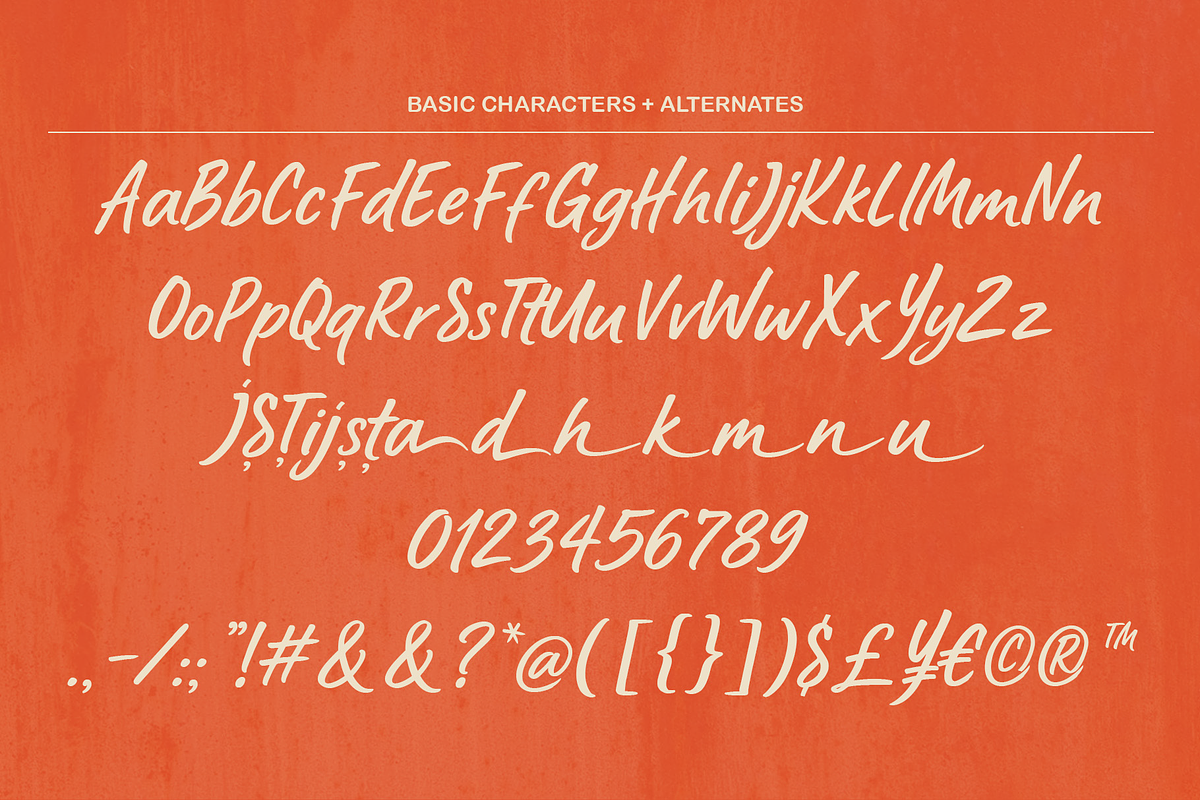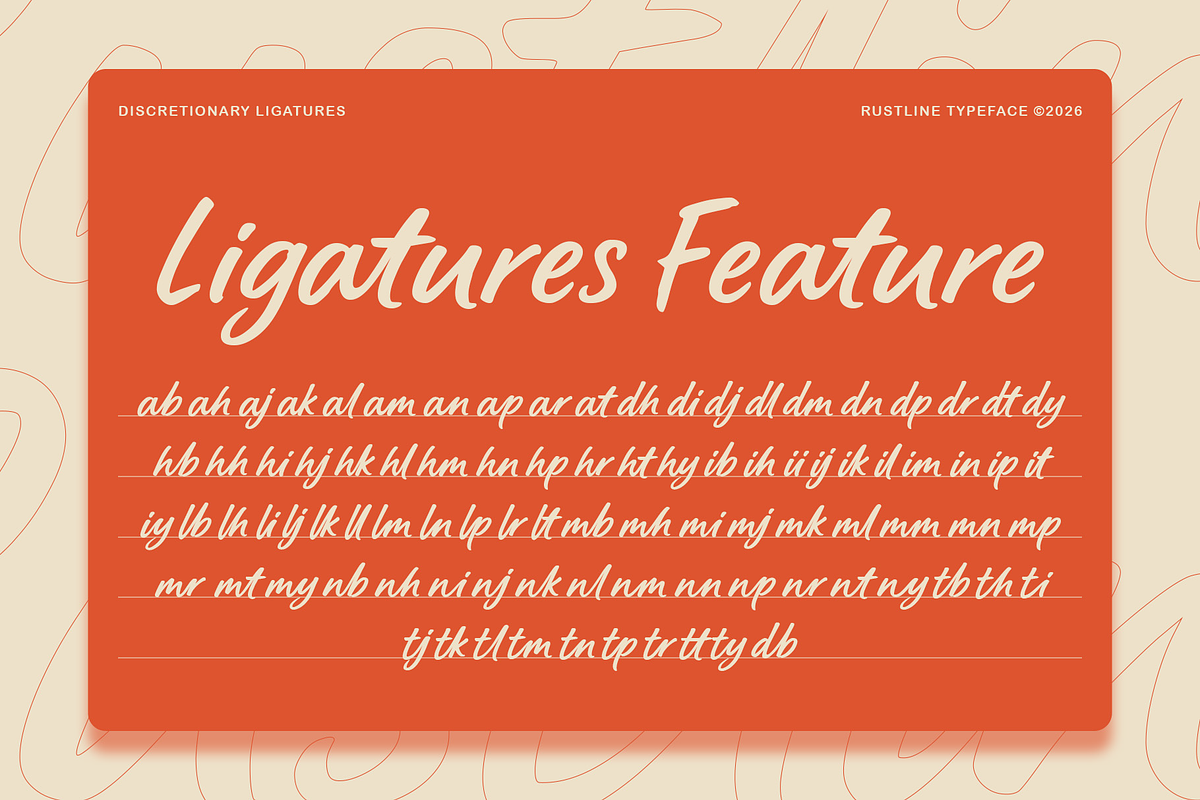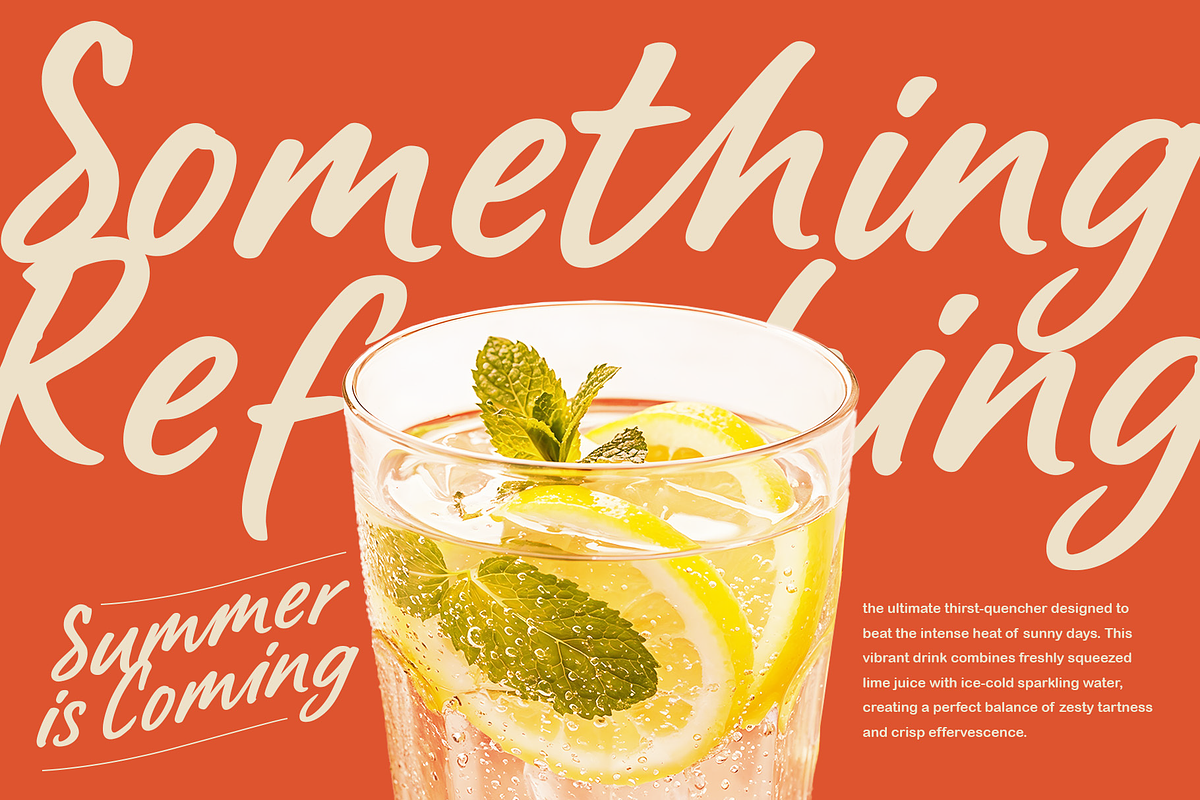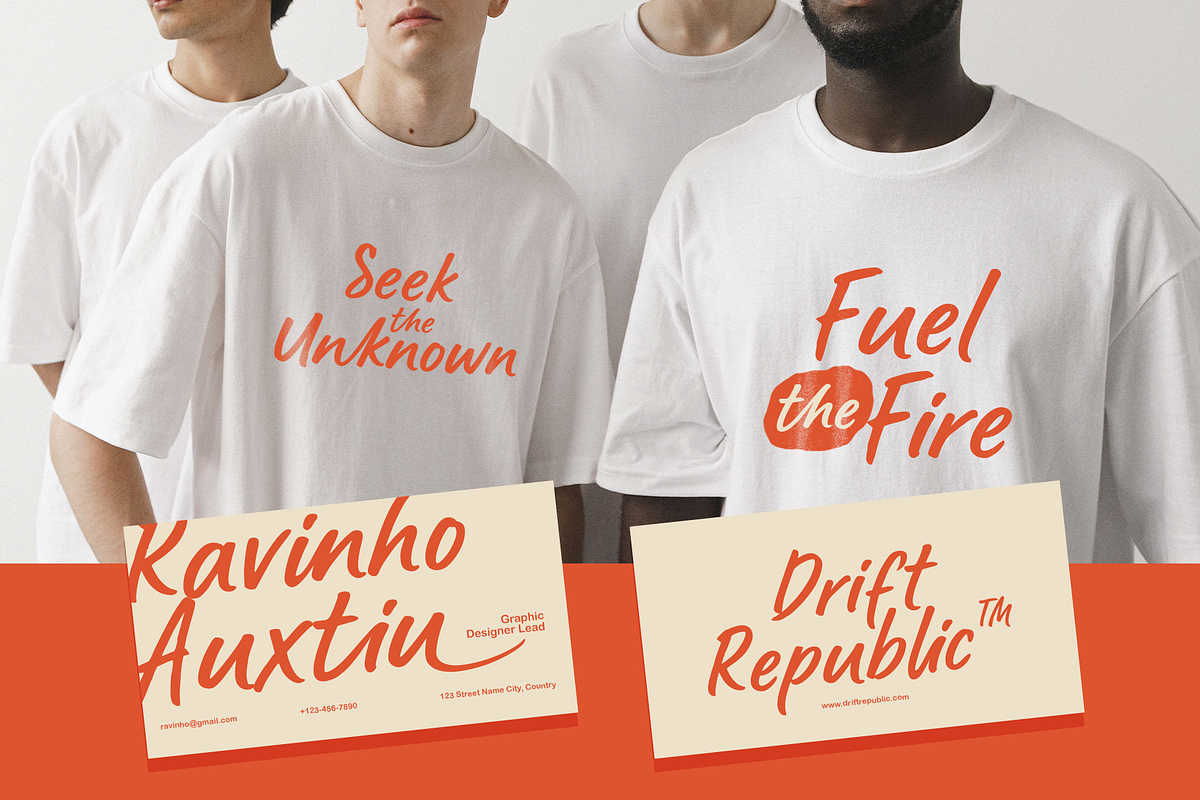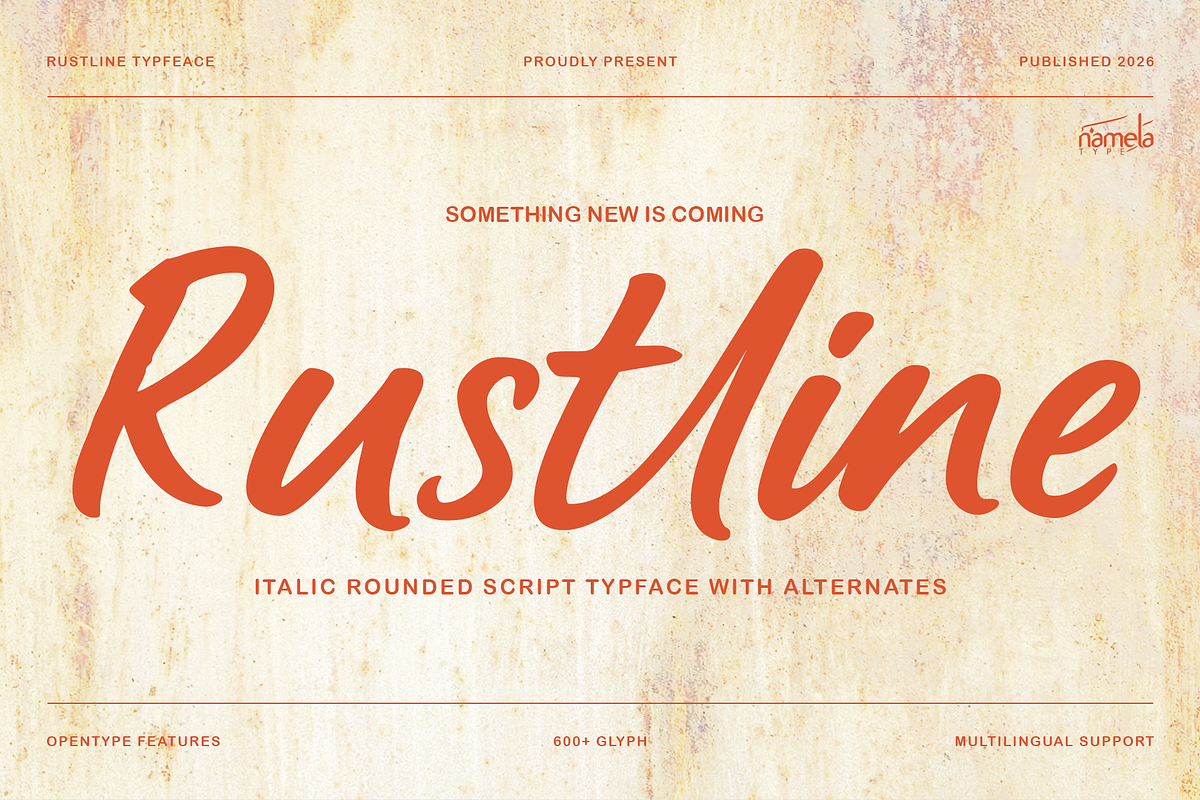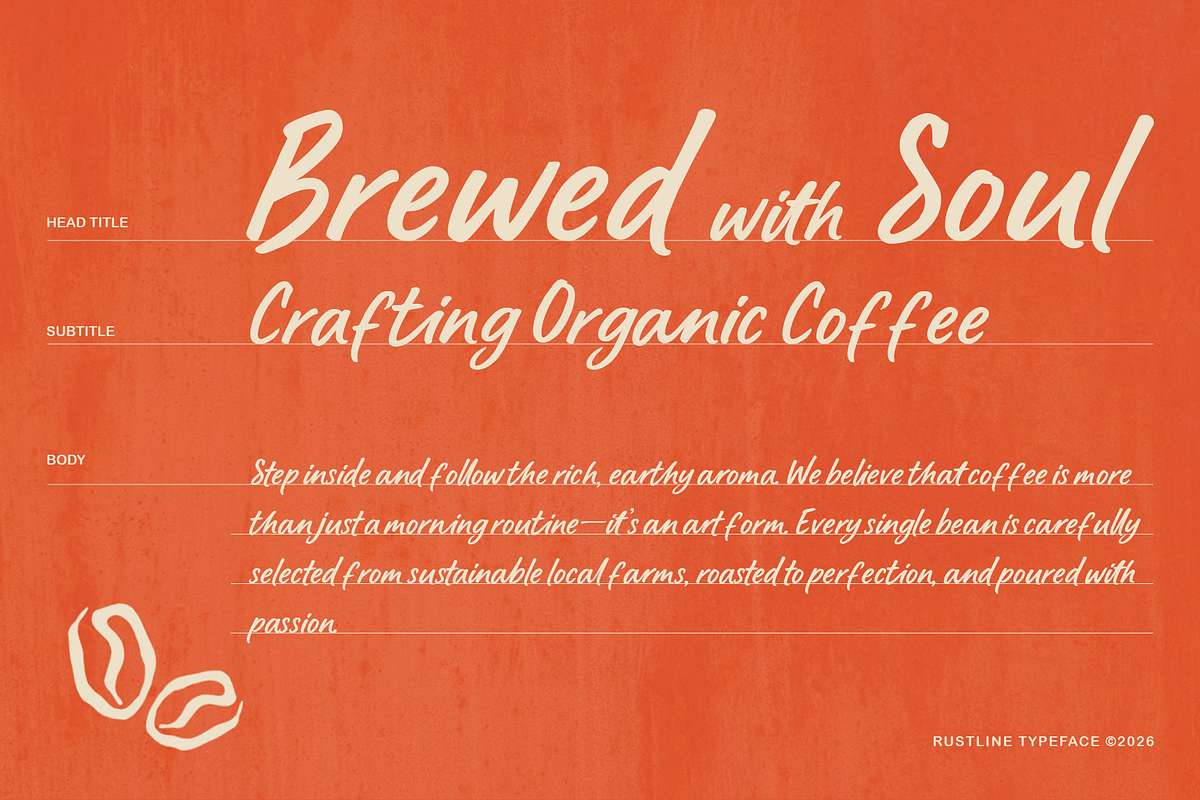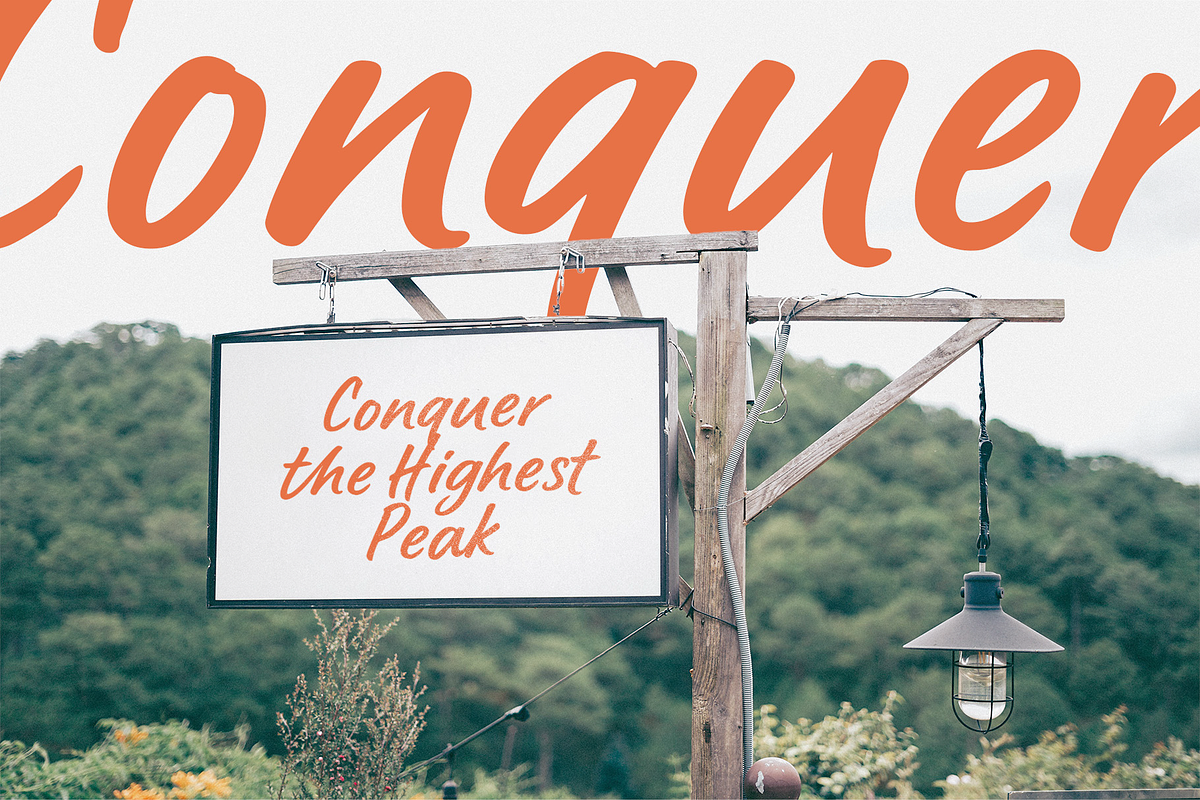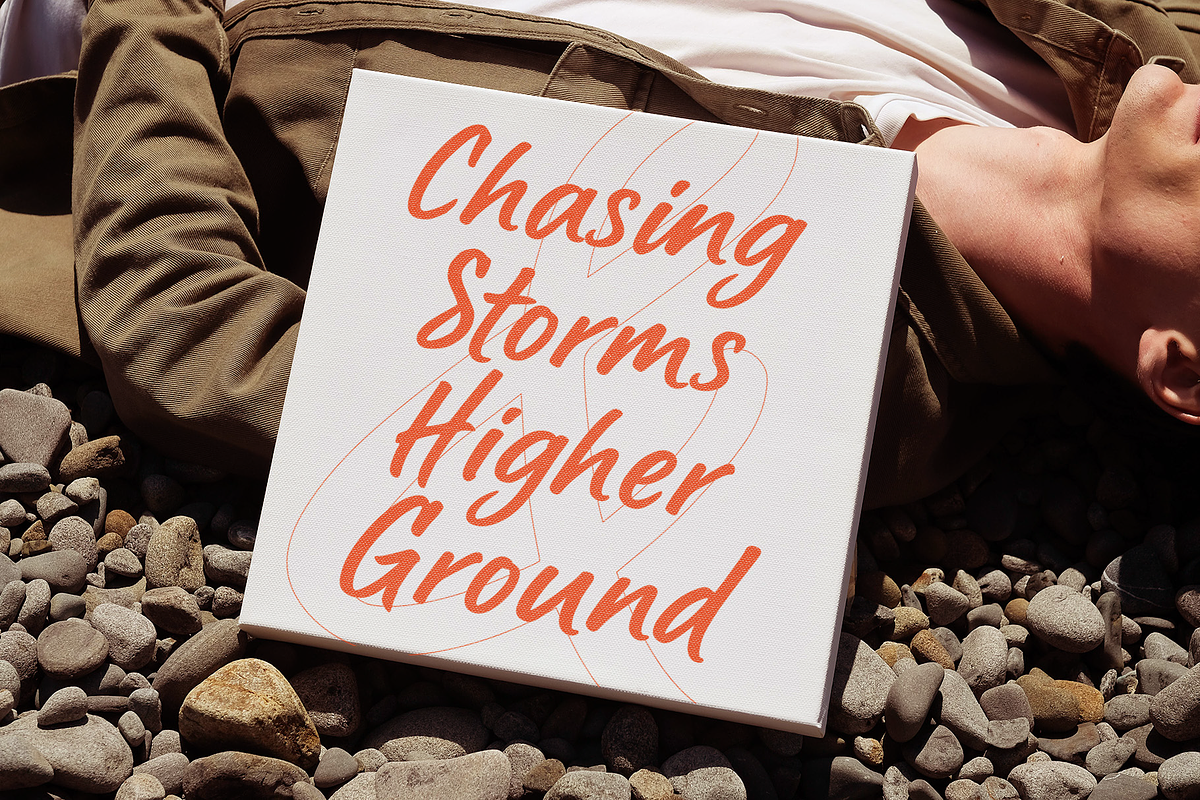
Rustline Bold Handwritten Script
Rustline – Bold Italic Handwritten Script Typeface for Artisan Branding
Rustline is a bold italic script typeface that captures the warmth of handcrafted lettering through smooth flowing strokes, rounded forms, and expressive movement. Inspired by artisan cafés, vintage sign painting, handwritten menus, and modern lifestyle branding, Rustline combines brush-style energy with contemporary refinement to create typography that feels authentic, inviting, and memorable.
Designed for creators who appreciate craftsmanship and personality, Rustline delivers the elegance of natural handwriting while maintaining the consistency required for professional branding, packaging, editorial design, and digital media. Its confident italic rhythm makes every headline feel dynamic without sacrificing readability.
Rustline was created to recreate the timeless beauty of handcrafted lettering found in artisan cafés, boutique storefronts, handwritten menus, vintage packaging, and lifestyle brands. Inspired by traditional brush lettering and natural handwriting, the typeface celebrates authentic craftsmanship while embracing modern typography standards.
Every character has been carefully refined to create smooth connections, rounded curves, and balanced proportions that preserve the spontaneity of handwritten lettering without compromising clarity. Rather than relying on decorative excess, Rustline communicates warmth through clean construction, expressive movement, and elegant simplicity.
Built with professional OpenType technology, Rustline offers dependable performance for branding systems, editorial publishing, product packaging, and multilingual commercial projects.
Design Details and Structure
Rustline is distinguished by expressive glyphs, bold italic construction, brush-inspired strokes, and naturally rounded curves. Its flowing rhythm allows letters to connect effortlessly, producing typography that feels organic, elegant, and highly readable.
With more than 600 glyphs, carefully designed ligatures, and stylistic alternates, Rustline provides designers with exceptional creative flexibility for producing custom-looking typography compositions. Rounded forms soften the bold structure while preserving the confident personality expected from premium handwritten lettering.
The result is a versatile script typeface equally suited to branding, packaging, editorial layouts, signage, and lifestyle design.
Rustline includes:
Uppercase & Lowercase Characters
600+ Glyphs
Discretionary Ligatures
Rounded Italic Script Style
OpenType Features
Advanced OpenType Features
Access All Alternates (aalt)
Glyph Composition (ccmp)
Discretionary Ligatures (dlig)
Standard Ligatures (liga)
Localized Forms (locl)
Stylistic Alternates (salt)
Stylistic Sets (ss01)
Denominator (dnom)
Fractions (frac)
Numerator (numr)
Ordinals (ordn)
Scientific Inferiors (sinf)
Subscript (subs)
Superscript (sups)
Kerning (kern)
Mark Positioning (mark)
Mark-to-Mark Positioning (mkmk)
These professional typography features provide designers with extensive creative control while preserving the natural rhythm and handcrafted appearance of the typeface.